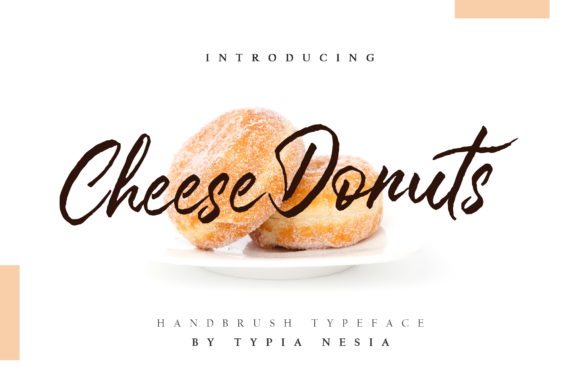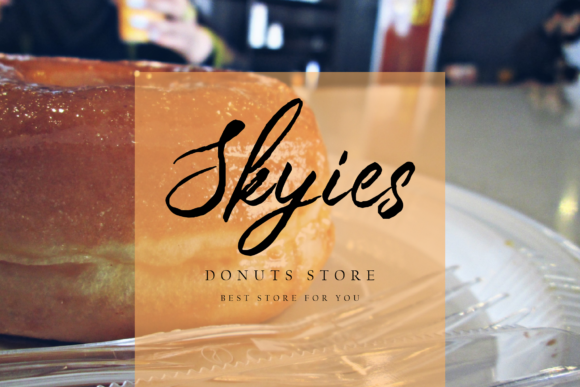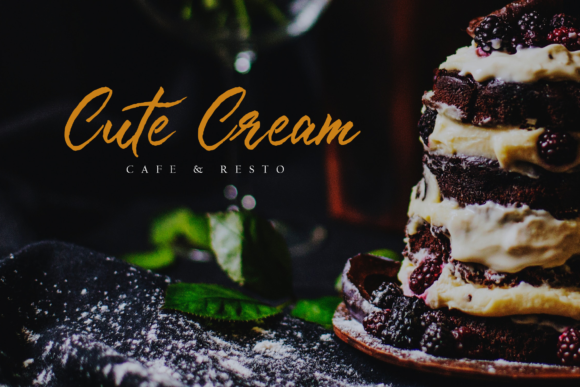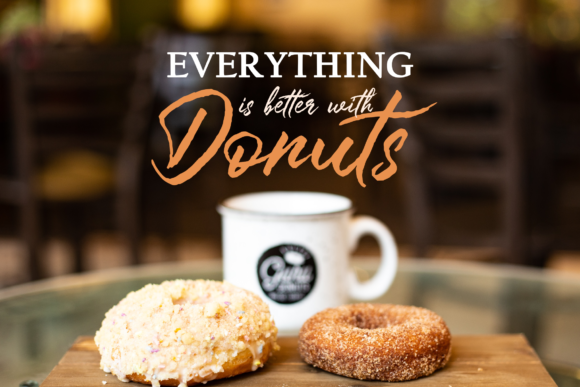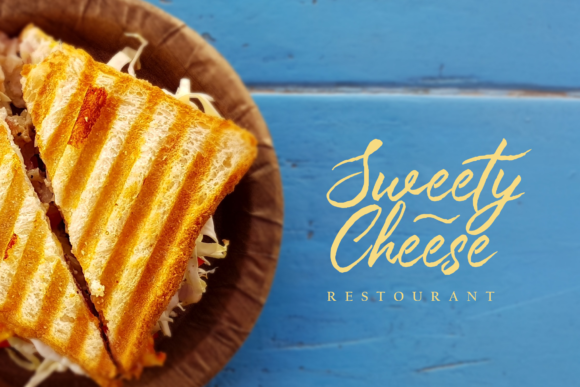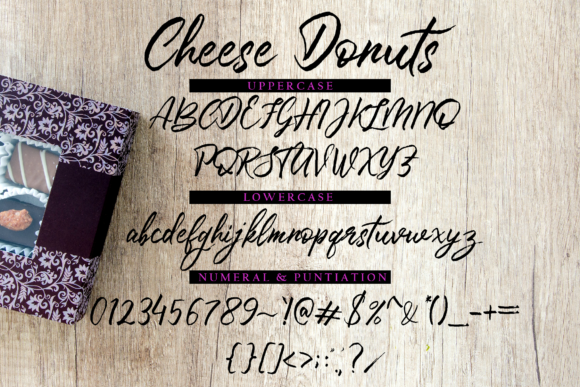
Cheese Donuts Font
About Cheese Donuts Font
Cheese Donuts is a sweet and delicious script with a modern feel. Use it to turn any design idea into a standout!